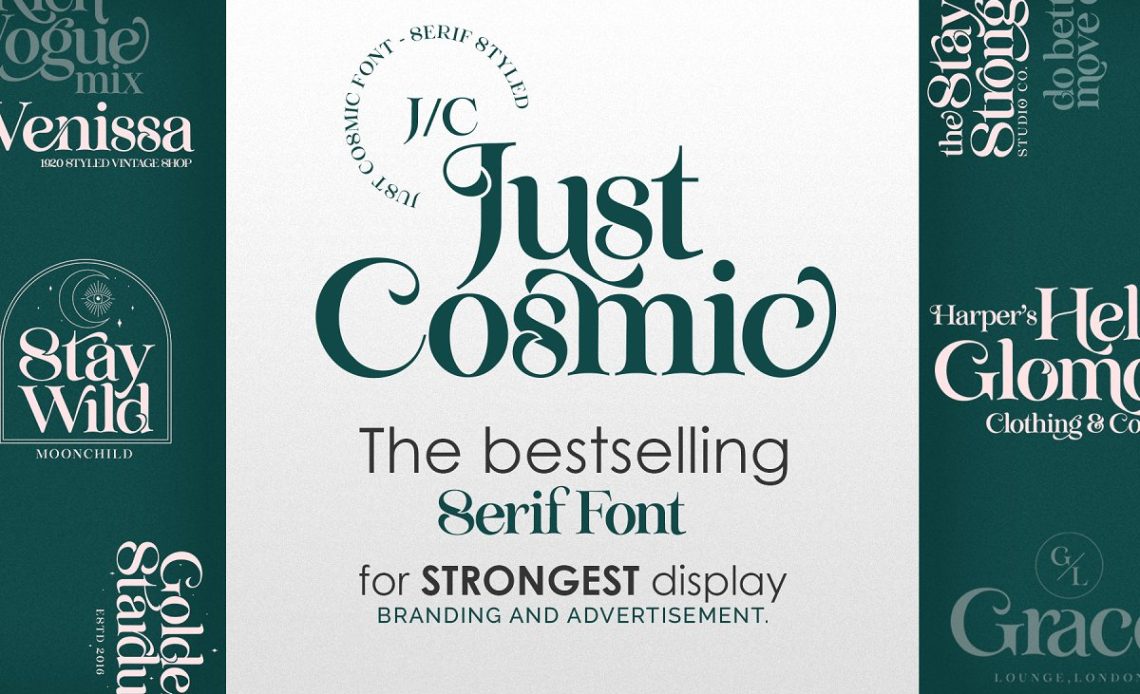
Looking for the perfect font for your wedding signs, branding, or display texts? Look no further than the Bestseller Creative Font Bundle, a stunning collection of 10 handpicked and bestselling fonts, created by SNIPESCIENTIST.
With 165 fully editable logos and fonts, this bundle is perfect for a variety of styles, including cursive, chalkboard, modern and vintage, feminine, premium, rustic, handwriting, and more. The logos and fonts are also compatible with Circut, Silhouette vinyl, tattoo, and bullet journal inspiration.
Featuring all OpenType fonts, Serif, Sans Serif, and Script, the Bestseller Creative Font Bundle has everything you need to create stunning typography. All fonts are fully vector designed and include accurate kerning for all serif and sans families. With amazing ligatures that look natural in script fonts, and alternative characters for script lowercase alphabets, the Bestseller Creative Font Bundle is the perfect choice for any project.
If you're looking for a robust display font, look no further than the Just Cosmic Display Serif. This bestselling serif font is perfect for branding and advertisement, with stunning alternates and ligatures that work with any serif and sans serif. And with 25 premade logos included, you'll be able to get started on your branding in no time.
For a beautiful and stylish font duo, check out LaRosa Font Duo. With a script and serif option, this duo is perfect for branding and display texts. Featuring great stylistic alternates and ligatures, these fonts are the perfect combo for any brand personality. And with 30 premade logos included, you'll have plenty of inspiration to work with.
Looking for a bold and dynamic font duo? The Bright Lake Font Duo has got you covered. Featuring a unique font of classy serif with beautiful ligatures and stylistic alternates, as well as a modern sans, this duo is perfect for any project. And with a unique high contrast sans font containing uppercase and lowercase characters, you'll be able to work with refined serif fonts with ease.
Overall, the Bestseller Creative Font Bundle is the perfect choice for anyone looking to elevate their typography game. With its stunning collection of fonts and logos, multilingual support, and easy installation, this bundle is sure to become a go-to for any designer or marketer.